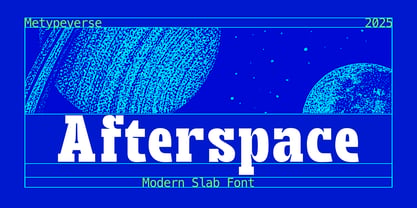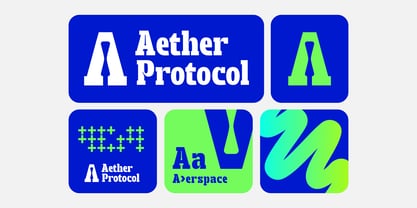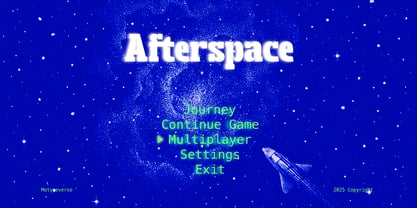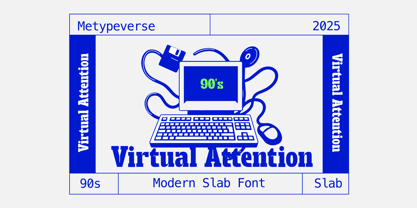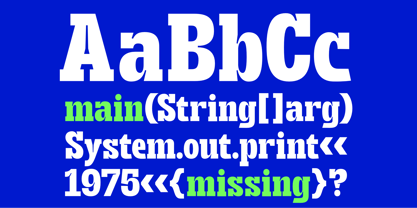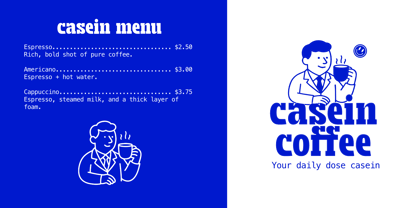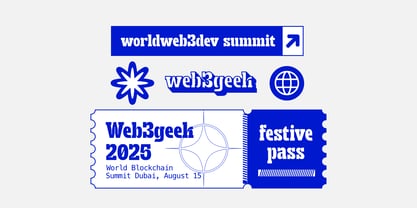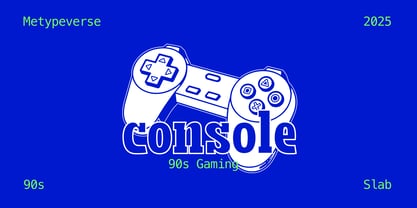
Afterspace
The Afterspace Font Family was designed by Mohamad Ridwan and published by Metypeverse. Afterspace contains 2 styles and family package options. More about this family
Not every bold font needs to take over the entire design.
Afterspace brings strong slab-serif character without making your layout feel heavy or difficult to balance. Its confident forms add personality while staying flexible enough for branding, coffee menus, game graphics, packaging, posters, creative events, and standout headlines.
Made for designers who want presence without the visual noise, Afterspace helps your work feel bolder, more intentional, and easier to remember.